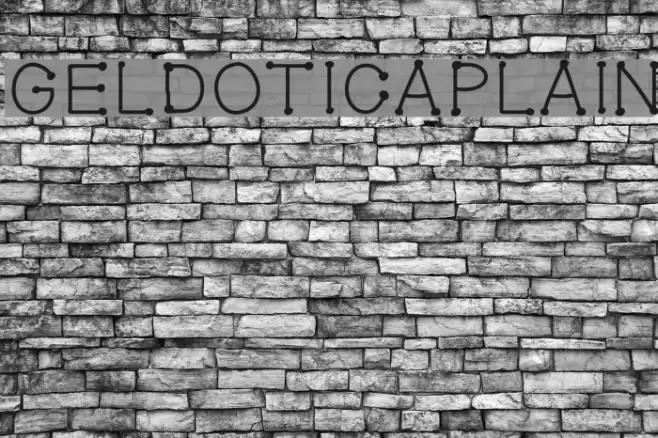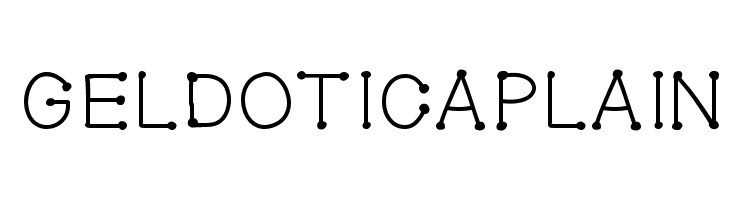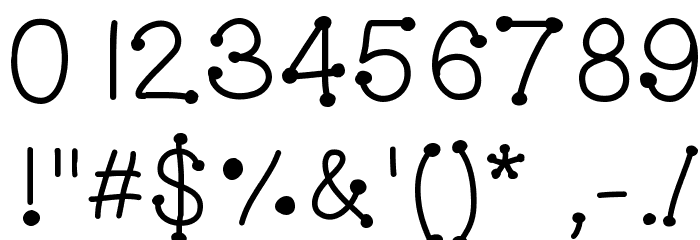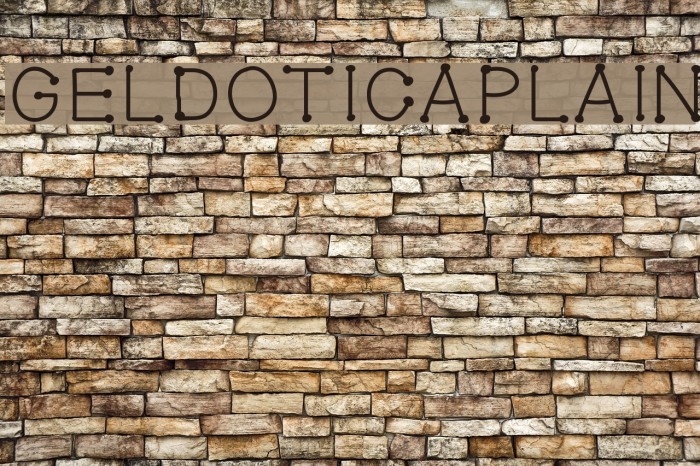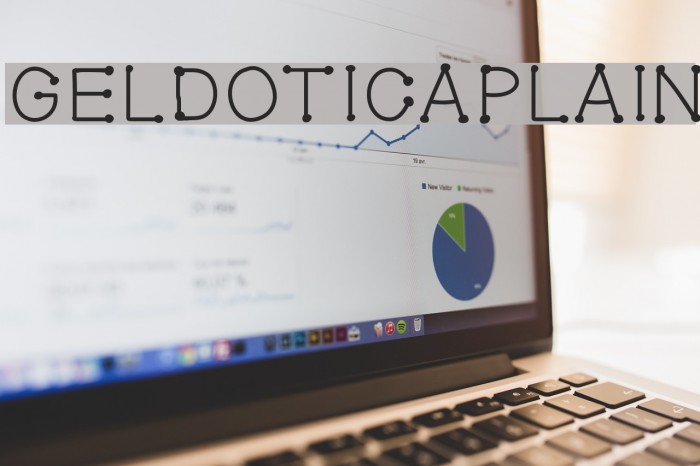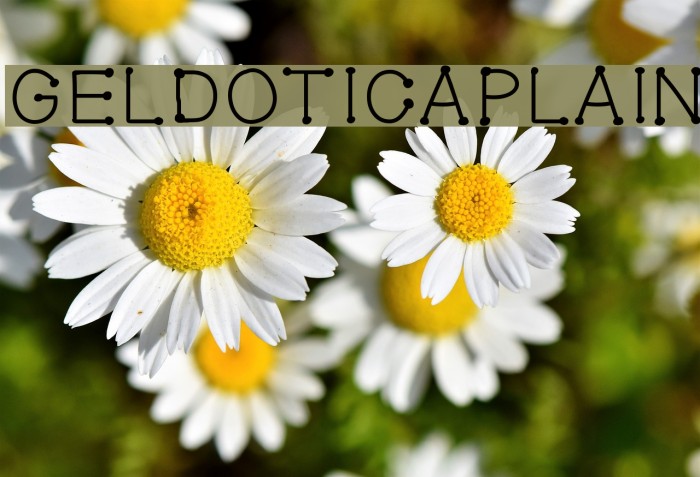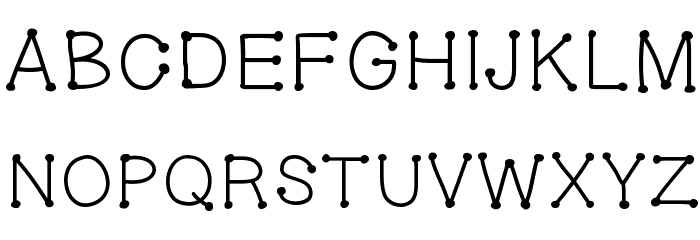
GelDoticaPlain Font
GelDoticaPlain Description
This playful and unique font features a dot-based design where each character is constructed with rounded dots connected by thin lines. The uppercase and lowercase letters maintain a consistent style, creating a cohesive look. The numerals and special characters follow the same playful dot motif, adding a whimsical touch to the overall design. The font's structure is clean and legible, making it suitable for creative projects that require a fun and modern aesthetic. Its distinctive appearance makes it stand out, while still being easy to read.
A playful dot-based font with rounded characters connected by thin lines from Decorative fonts.
- Proposed Projects: Ideal for children's books, playful branding, creative posters, and modern art projects.